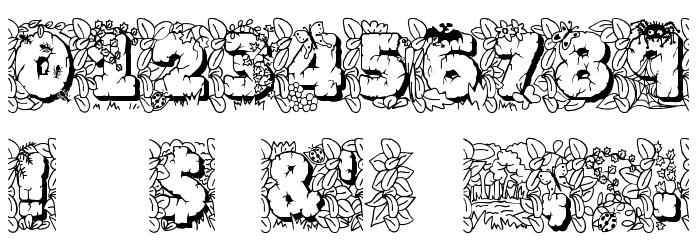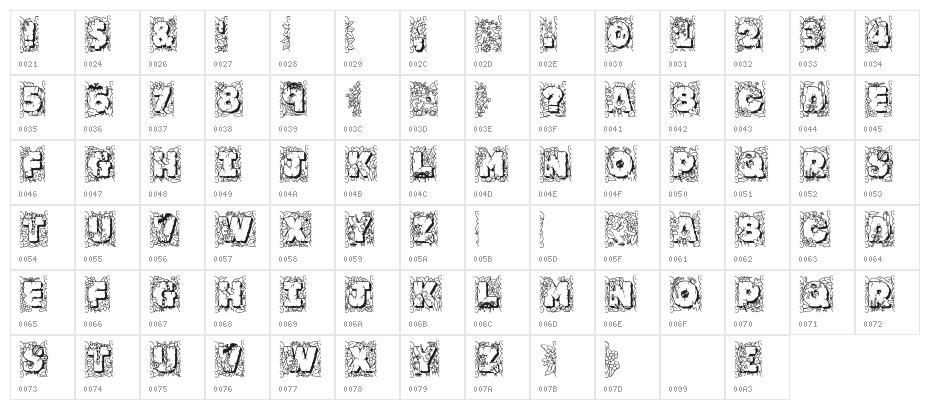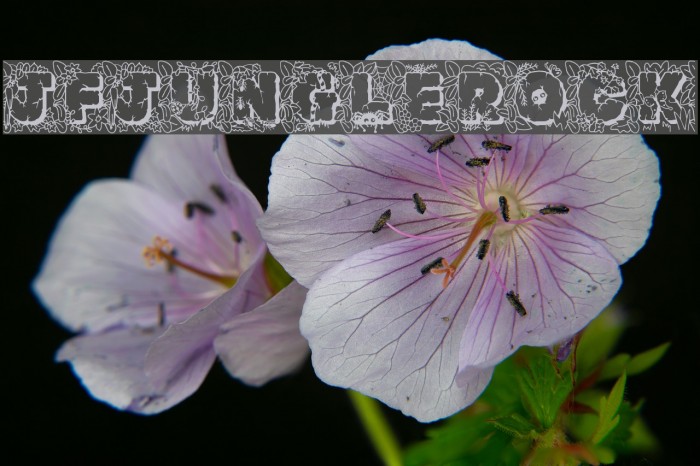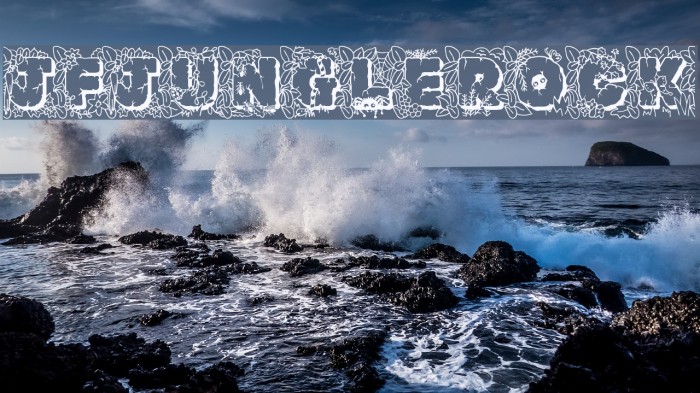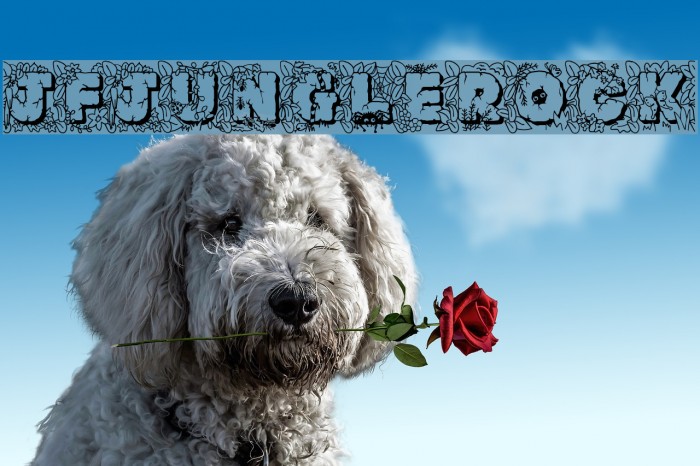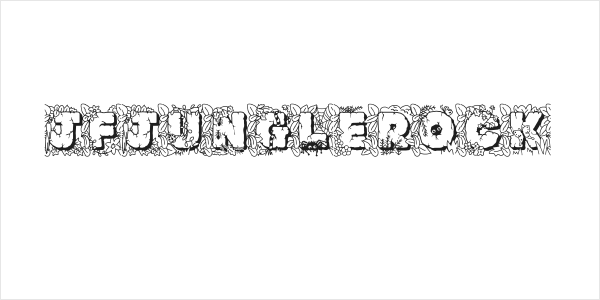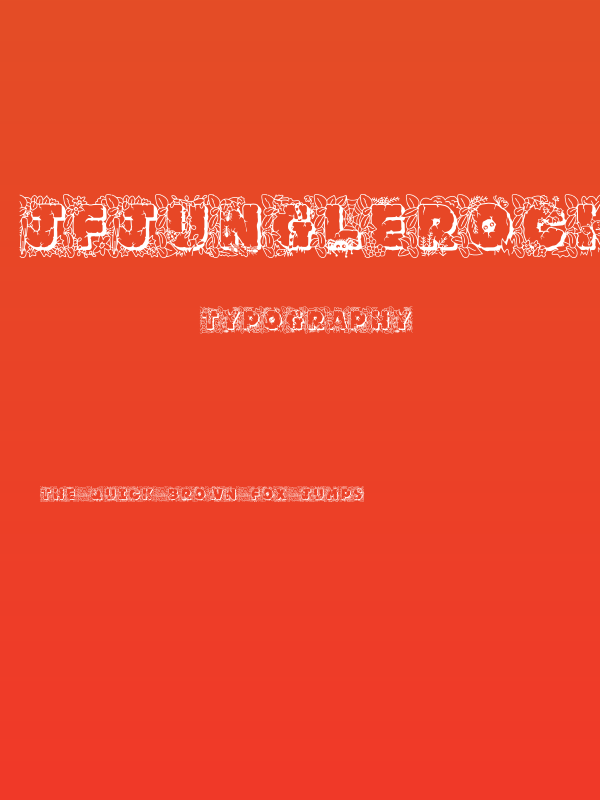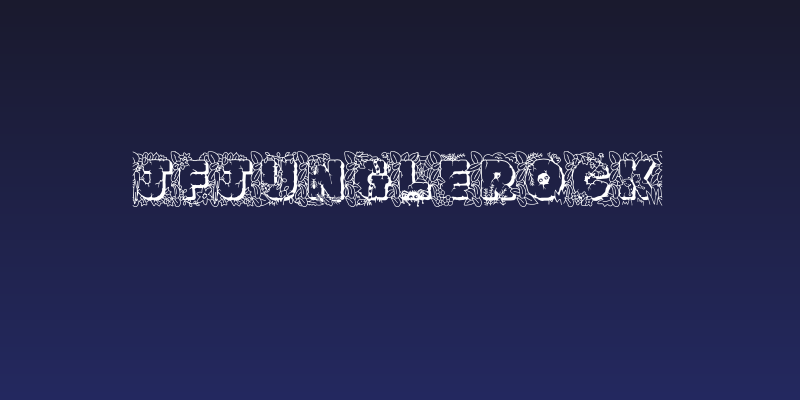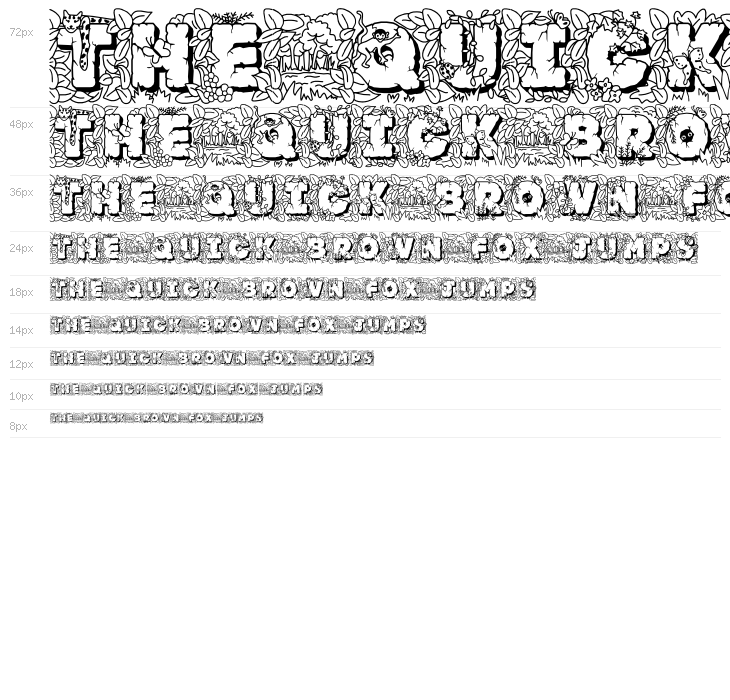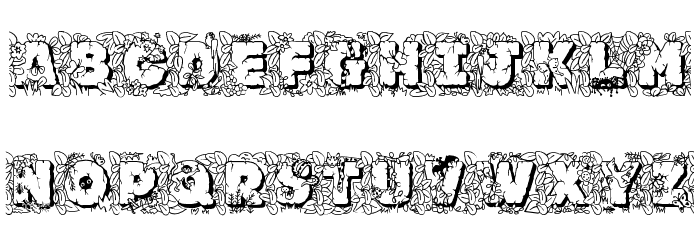
JFJungleRock Font
JFJungleRock Description
This font is a highly decorative and playful typeface that features bold, blocky letters surrounded by intricate jungle-themed illustrations. Each character is enveloped in detailed foliage, vines, and floral elements, creating a vibrant and lively appearance. The design is reminiscent of a lush jungle environment, making it ideal for projects that require a fun and adventurous aesthetic. The characters are well-defined and maintain legibility despite the complex decorative elements. This font is perfect for capturing attention and adding a unique touch to any design.
| Proposed Projects | Ideal for children's books, adventure-themed posters, event invitations, and branding for nature-related products. |